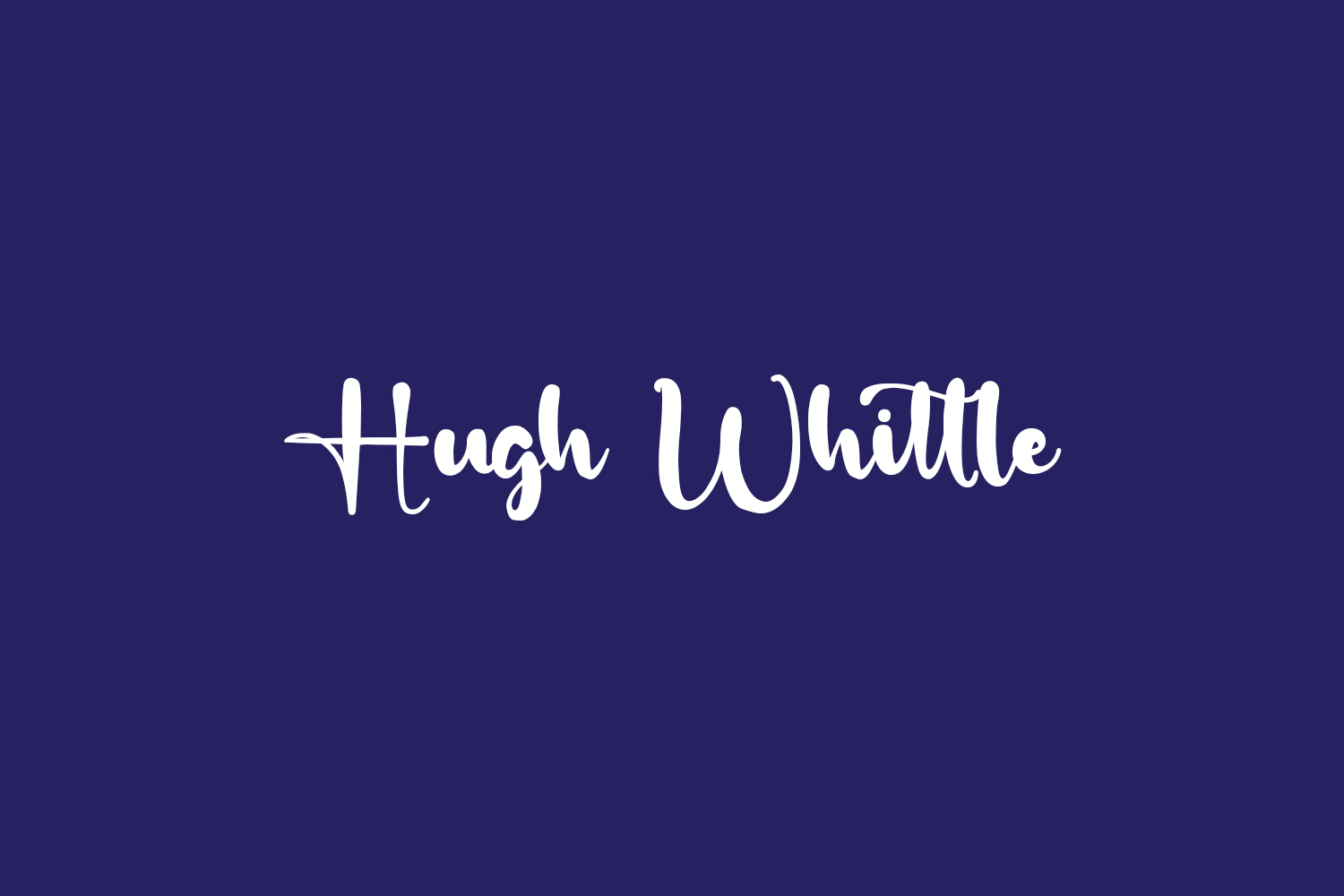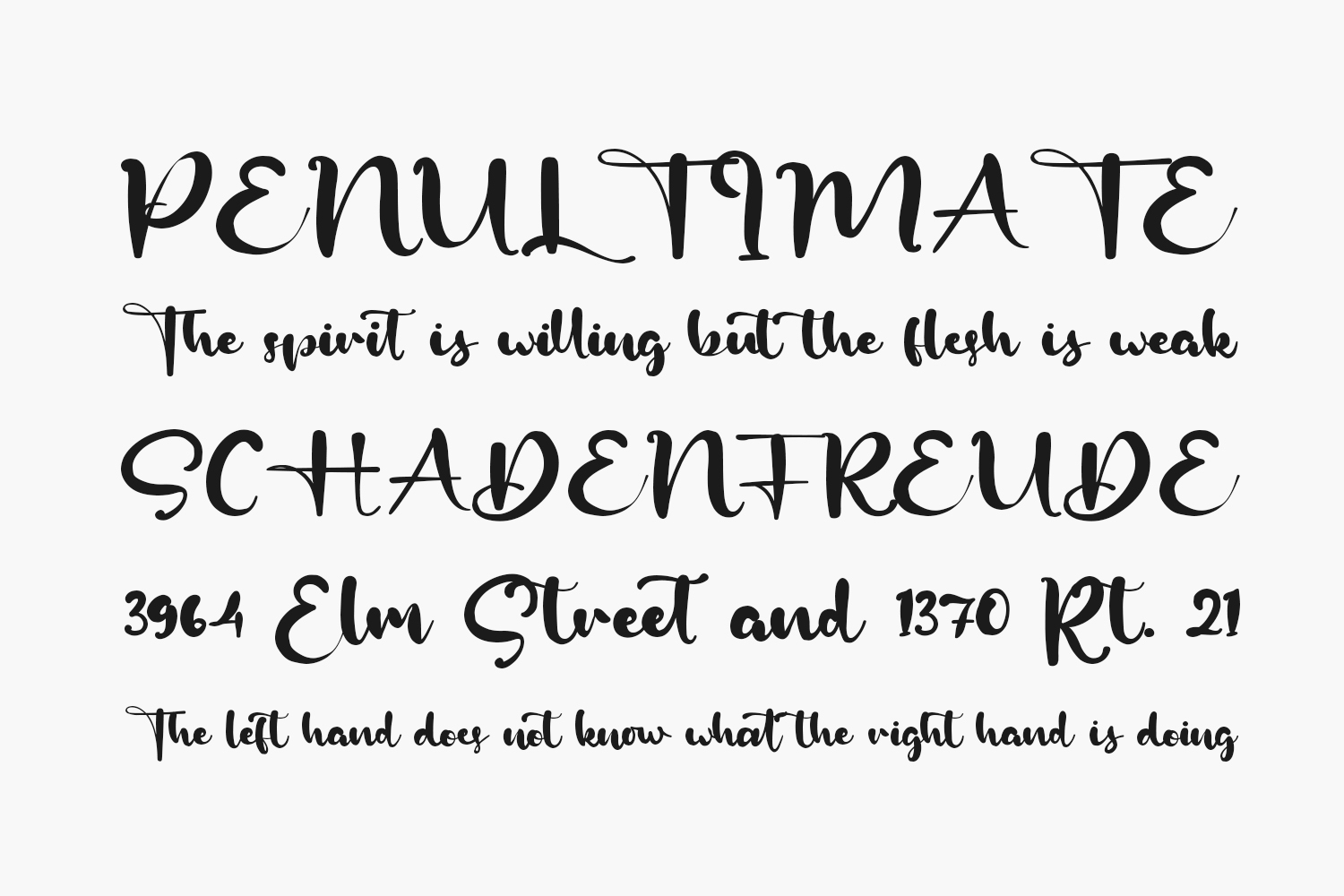
Hugh Whittle Free Font is a modern and playful handwritten font. It’s great for crafters and designers. Compatible with tools such as Photoshop and Silhouette design studio. Its playfulness can make it great for creative projects. Hugh Whittle Free Font was designed by Kong Font and is free for personal or commercial use.